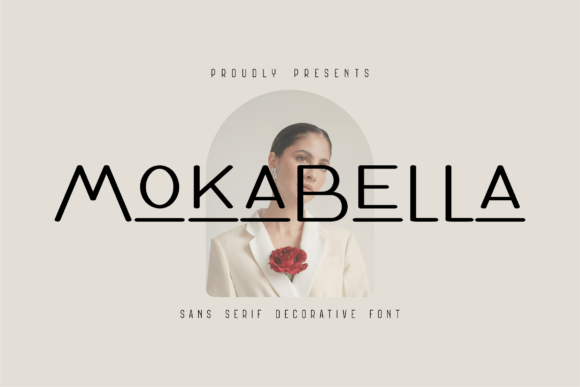
Discover Mokabella Font, the epitome of elegance and sophistication in the world of typography. This captivating sans serif font family exudes a timeless charm, effortlessly blending classic aesthetics with a contemporary twist. Immerse yourself in the world of Mokabella Font and let your creativity soar.
With its clean lines, graceful curves, and distinctive letterforms, Mokabella Font is a versatile masterpiece that caters to a wide spectrum of design needs. Whether you're crafting captivating fashion designs, creating eye-catching apparel projects, designing stunning album covers, or developing memorable logos and branding, Mokabella Font is your ultimate choice. Its versatility extends to magazines, social media platforms, and advertisements, making it a true all-rounder in the design realm.
Unleash your imagination and embark on a design journey like never before. Mokabella Font's intricate details and impeccable craftsmanship will elevate your projects, leaving a lasting impression on your audience. Experience the joy of creating designs that exude elegance, class, and a touch of modern flair.
But that's not all – Mokabella Font comes with an exclusive selection of bold embroidery designs, meticulously crafted to add a touch of texture and dimension to your projects. Transform your designs into tangible masterpieces, captivating the senses and leaving a lasting impression.
Join the ranks of discerning designers who have embraced Mokabella Font as their go-to choice for creating exceptional designs. Let Mokabella Font be your muse, inspiring you to craft designs that are both aesthetically pleasing and impactful.